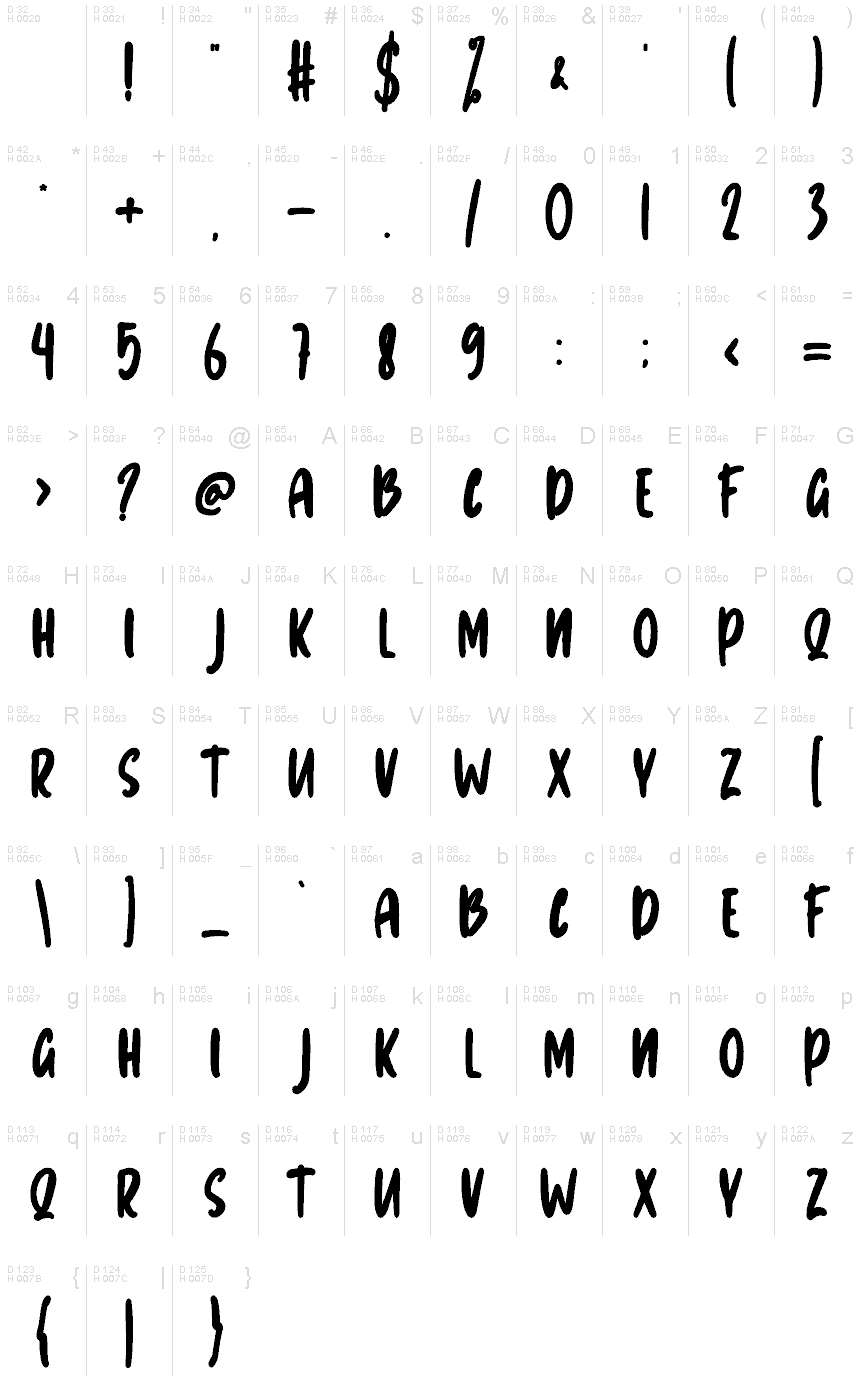
Zumabes
Zumabes font, designed by Skiiller Studio, is a free handwritten font which makes an impact with its unique expressive style. Designed to appear informal and spontaneous, it resembles the genuine expressions of our own handwriting, albeit an enhanced version that is both artistic and impactful. This modern condensed typeface easily becomes the center of attention in any design arrangement as it resonates casualness and energetic vibes.
Introduce Zumabes to your business cards, advertisements designs, product labeling projects or try it out on book covers and their spine texts. Perfect use cases also include editing social media posts (Instagram mostly), logos & mascots for brands or sport clubs, posters for travel destinations etc.